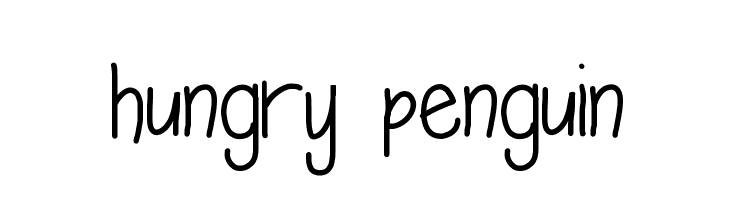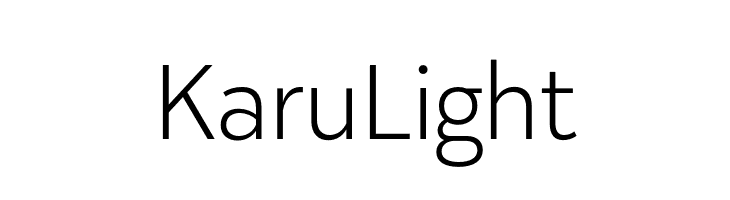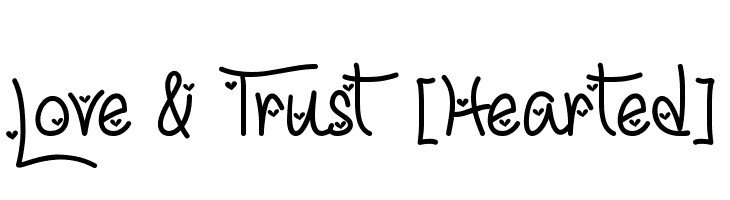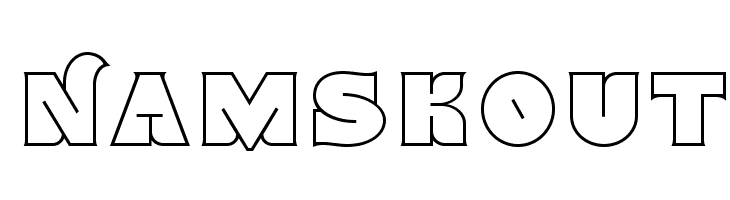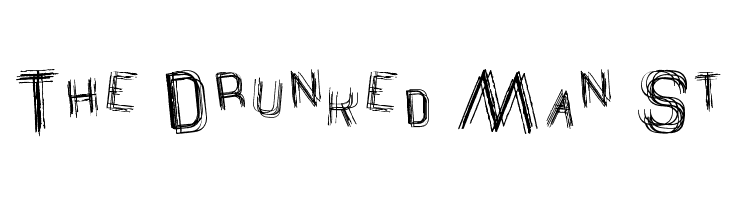
A modern, geometric sans-serif font with clean lines and excellent legibility.
A playful, bold font with heart accents and rounded characters.
A bold, handwritten font with a playful and energetic style.
A bold, brush-style font with dynamic, hand-drawn strokes.
A bold, graffiti-inspired font with a dynamic and playful style.
A bold, italicized sans-serif font with a modern and dynamic style.
A playful, handwritten font with a casual and friendly appearance.
A multi-line, geometric font with a bold, modern aesthetic.
A whimsical, curly font with playful and decorative elements.